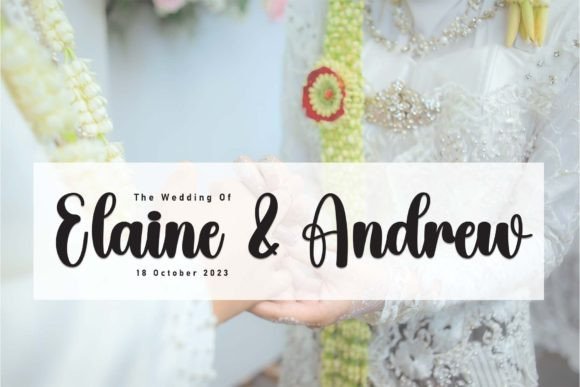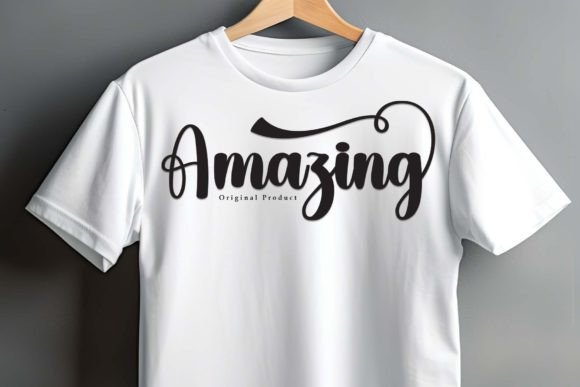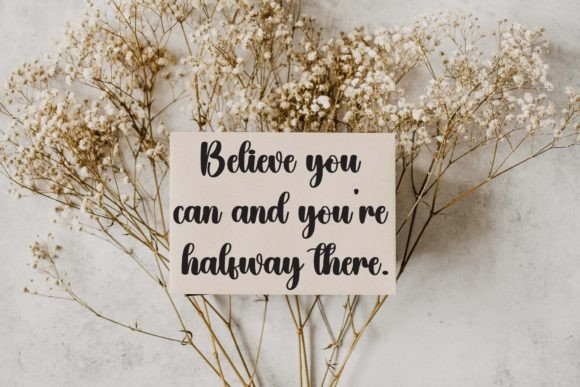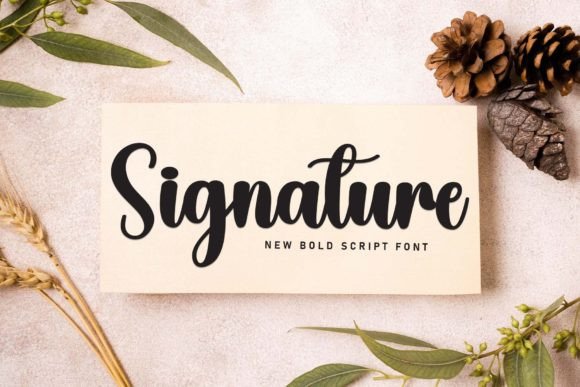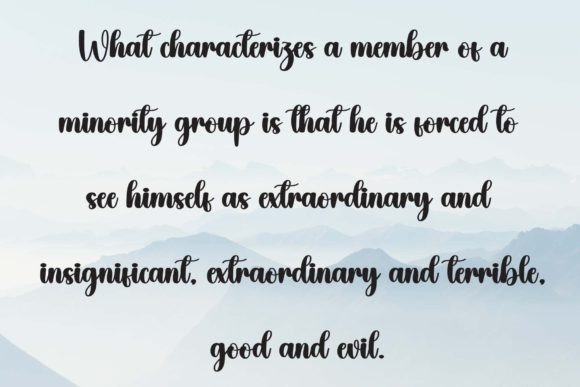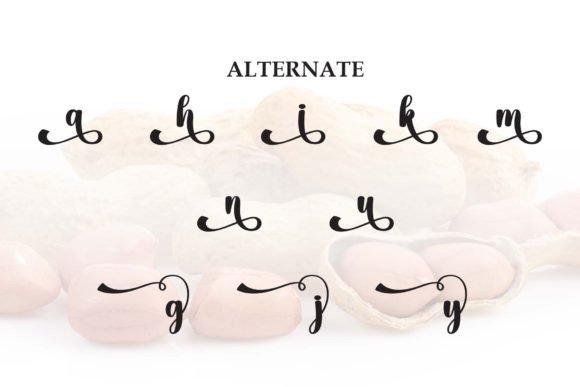
When Words Become Art: Discovering the Magic of Beaning Font
Have you ever found yourself scribbling down a creative idea in a notebook, only to realize that the handwritten font has become an integral part of the concept’s charm? This is exactly the moment when the beauty of a well-designed font can elevate your work to the next level.
Enter Beaning Font, a sweet and friendly handwritten font that’s designed to bring a natural and unique touch to your designs. Its versatility makes it a perfect fit for a wide range of projects, from elegant wedding invitations to playful children’s books. Whether you’re a seasoned designer or a creative enthusiast, Beaning Font is sure to inspire your imagination and help you bring your ideas to life.
For designers, Beaning Font is a valuable tool that can add a personal touch to their work, making it stand out from the crowd. With its endless possibilities, the only limit is your imagination – and that’s what makes Beaning Font truly special.
Beaning Font Key Features
- Font Family: Beaning Font comes in 2 font families – Regular and Italic.
- Unique Characteristics: The font features a unique, handwritten style with subtle imperfections, giving it a personal and friendly feel.
Beaning Font Review
As a designer, I’ve had the chance to work with a wide range of fonts, and I’m here to give you my honest review of the “Beaning Font”.
- The unique, quirky design of the font is sure to grab attention and add some personality to your designs.
- The font is highly customizable, making it easy to adjust to suit your specific needs.
- The extensive character set includes a wide range of punctuation and special characters, making it a great choice for complex designs.
- The font can be quite busy and overwhelming, especially in larger font sizes.
- The irregular shape of the characters can make it difficult to read in certain situations.
- The font is not suitable for body text, as it can be tiring to read in large quantities.
Overall, I’d say the “Beaning Font” is a great choice for designers who want to add some personality and whimsy to their designs. While it may have some limitations, it’s definitely a unique and eye-catching font that’s sure to make a statement.
The Beaning Font is perfect for:
- Creatives looking for a unique and playful font.
- Designers who want to add a touch of whimsy to their projects.
Great Vibes Font is a beautiful, elegant script font perfect for creating a luxurious and sophisticated look. It’s ideal for use in branding, invitations, and wedding designs. Compared to Beaning Font, Great Vibes Font has a more refined and high-end feel, making it suitable for premium products and services.
Alex Brush Font is a classic, handwritten script font that works well for creating a personal and artistic look. It’s suitable for use in logos, packaging, and advertising designs. Compared to Beaning Font, Alex Brush Font has a more traditional and timeless feel, making it ideal for projects that require a touch of nostalgia.
Dancing Script Font is a lively and playful script font perfect for creating a fun and energetic look. It’s ideal for use in social media graphics, event promotions, and youth-oriented designs. Compared to Beaning Font, Dancing Script Font has a more dynamic and youthful feel, making it suitable for projects that require a sense of excitement and adventure.